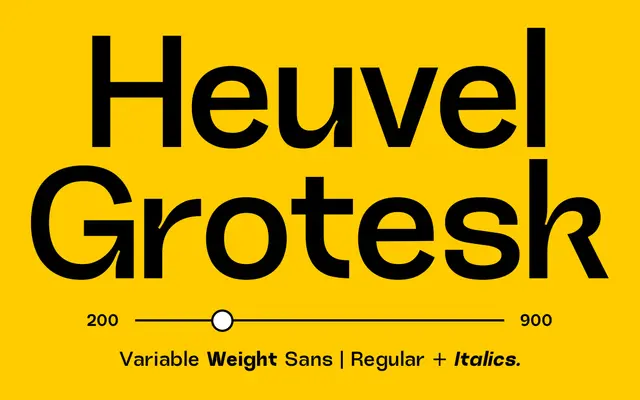
Heuvel Grotesk
Prioritype · 2024
A contemporary grotesque with inktraps across eight weights, available as a variable font with matching italics throughout.
Sixteen styles span ExtraLight to Black with corresponding italics, and the family ships as a variable font file alongside static OTF, TTF and WOFF formats. Inktraps add a subtle typographic detail that lifts it slightly above the average generic grotesque. Latin Extended coverage across a wide range of languages makes it suitable for multilingual branding and web projects.
A contemporary grotesque sans with inktraps and a variable font file, positioned squarely in the modern grotesque tradition with a broad weight range and matching italics.